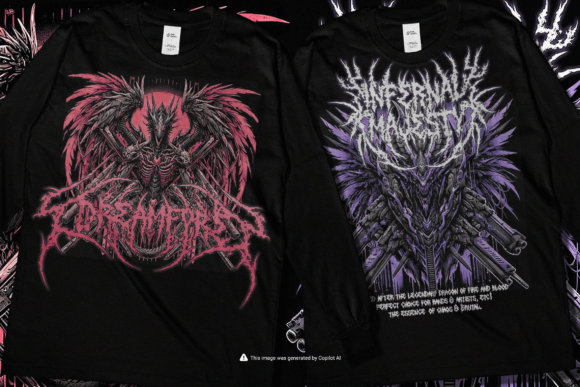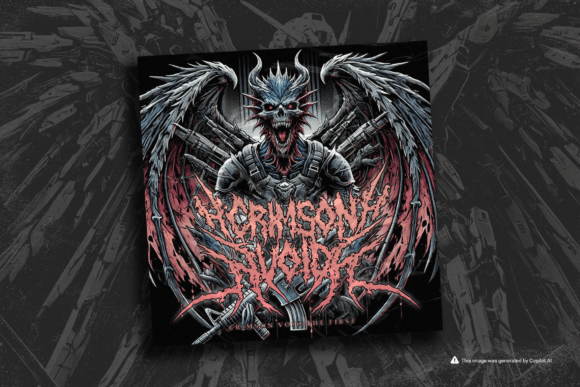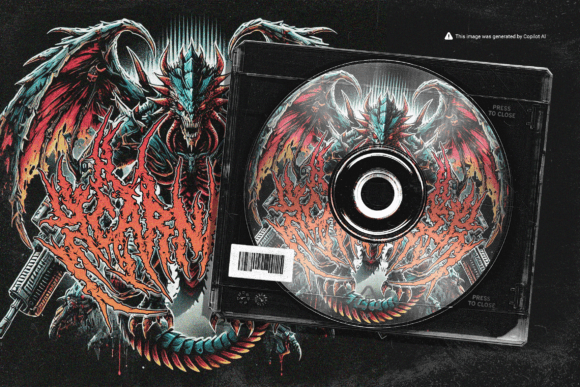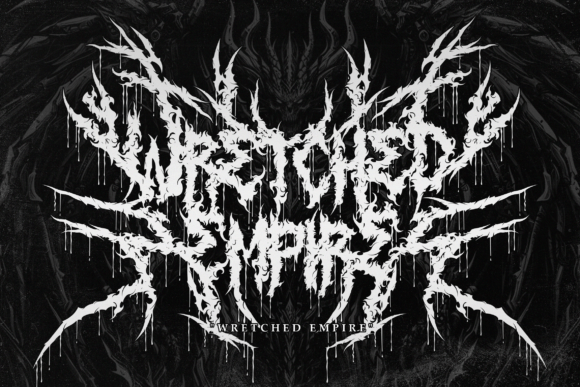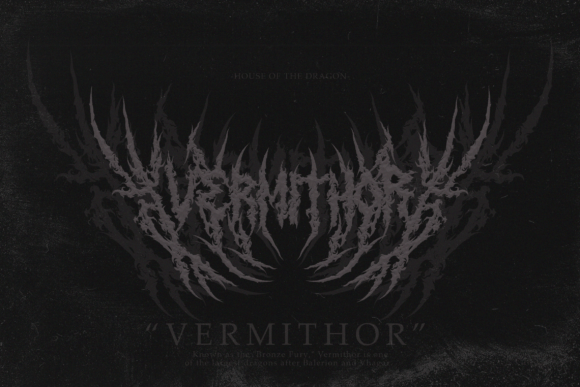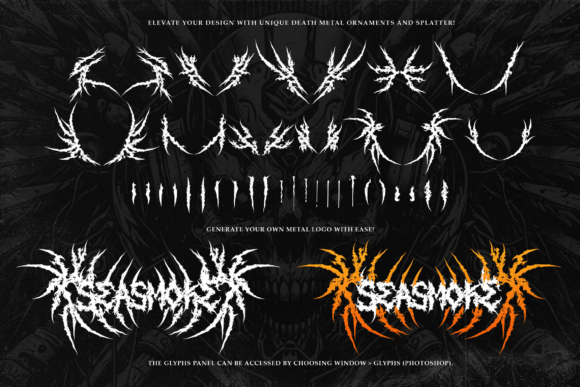
Introduction to Balerion Font
Have you ever found yourself in a creative frenzy, pouring over designs, searching for that one element to elevate your project to the next level? It’s a moment we’ve all experienced – the thrill of discovery, the rush of inspiration. For designers, this feeling is what drives us to push boundaries and innovate. It’s a pursuit of perfection, and the right font can be the key to unlocking that elusive spark. That’s where Balerion Font comes in – our latest creation, born from the dark, intense world of death metal.
This powerful font is a game-changer for any designer looking to add an air of sophistication and edginess to their work. With its sleek, high-quality design and transparent background, Balerion Font is a versatile resource that can be used across various creative projects, from album art to music videos, and even graphic novels. And the best part? It’s available for free download, making it an invaluable addition to any designer’s toolkit.
Balerion Font
- High-quality, professional font suitable for various creative projects, including graphic design and digital art.
- Features a transparent background, providing flexibility for designers to customize the font’s appearance.
- Designed with a unique, bold aesthetic, making it perfect for titles, headings, and other prominent text elements.
- High-resolution font, suitable for use in both print and digital media, ensuring crisp and clear text rendering.
Honest Review: Balerion Font
I recently stumbled upon the Balerion Font, and I must say it’s a great addition to any designer’s toolkit. This font is perfect for those who want to give their creative project a unique touch.
- High-quality design that’s sure to impress.
- Can be used for a wide range of creative projects, from logos to typography-based designs.
The Balerion Font features a unique, bold style that’s perfect for making a statement. It’s also versatile, with a transparent background that allows for easy color customization.
- The font may not be suitable for small-scale designs, as it can be quite overpowering.
Overall, I’m impressed with the Balerion Font. It’s a high-quality design resource that’s perfect for those who want to add a unique touch to their creative project. While it may have some limitations, it’s definitely worth checking out for designers of all levels.
Balerion Font
Tips for Getting the Most Out of Balerion Font
To get the most out of the Balerion Font, experiment with different font sizes, colors, and styles. Use the font on a transparent background to create a stunning visual effect. Combine the font with other design elements, such as images and shapes, to create a unique and eye-catching design.
The Balerion Font is perfect for creative projects, such as logo design, branding, and marketing materials. It’s also great for use in presentations, documents, and social media graphics. With its high-quality design and transparent background, the Balerion Font is a valuable design resource for any project.